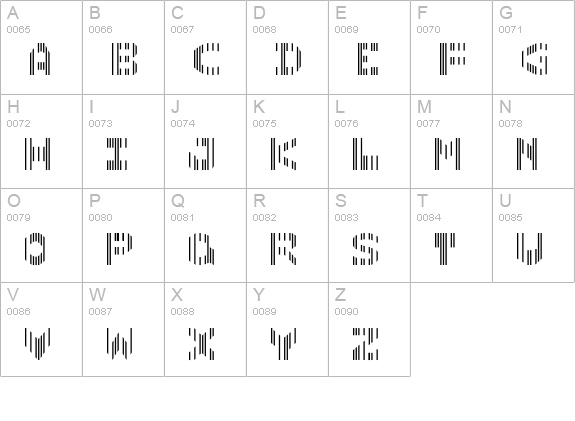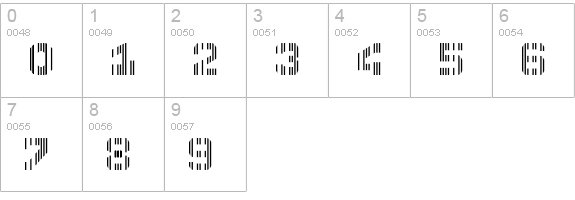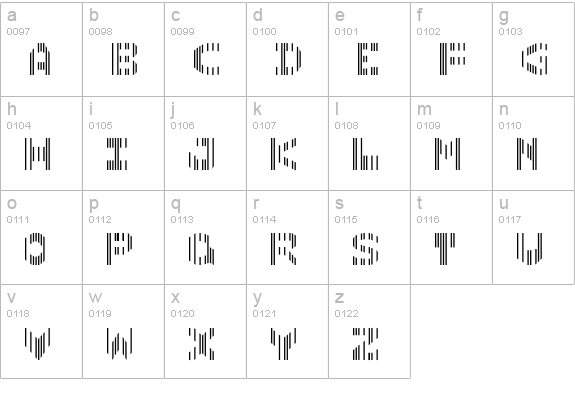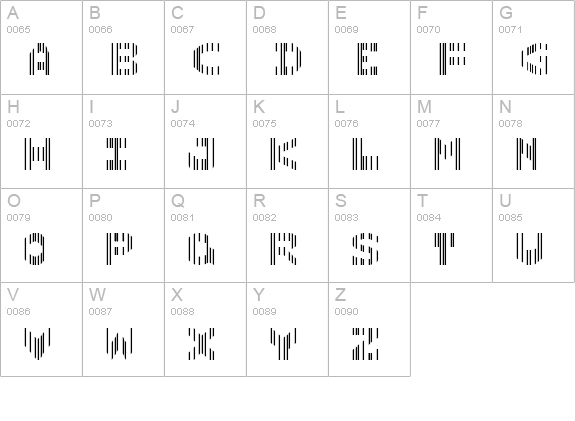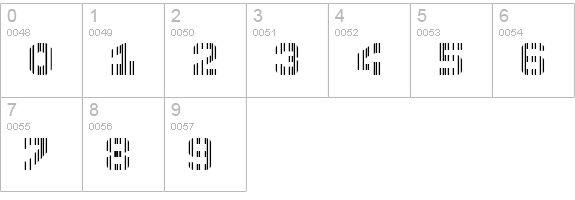
The CMC7 font is a unique and highly recognizable typeface commonly used in banking and financial institutions for encoding characters on checks. Its distinctive design features a series of vertical lines and numbers, making it easily readable by machines and human eyes alike. The CMC7 font is versatile and can be used for a variety of applications beyond banking, such as invoices, payment slips, and other financial documents. Best of all, the CMC7 font is available for free download at FontsMarket.com. This means you can easily access and use this specialized font in your projects without any cost. Whether you need to create professional-looking checks or want to add a touch of authenticity to your financial documents, the CMC7 font is a valuable resource that won't break the bank. Download it today and enhance the visual appeal and functionality of your designs with this distinctive and practical typeface.